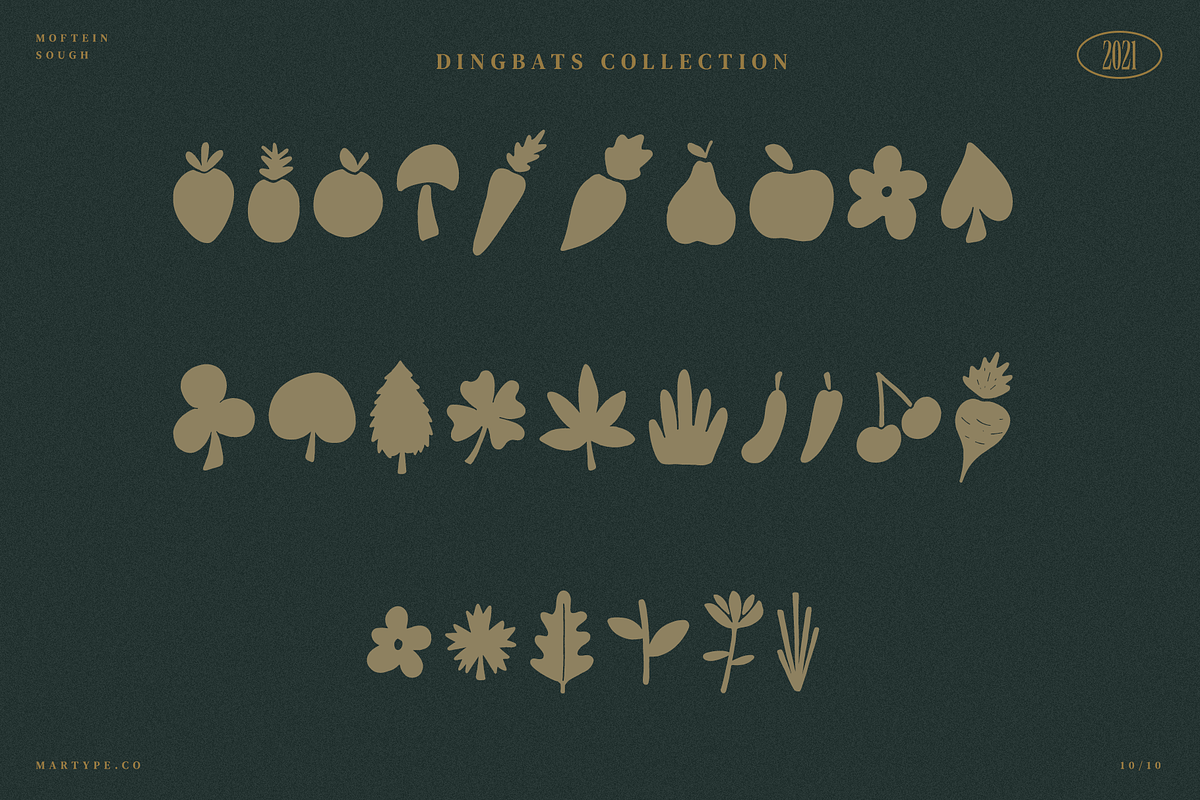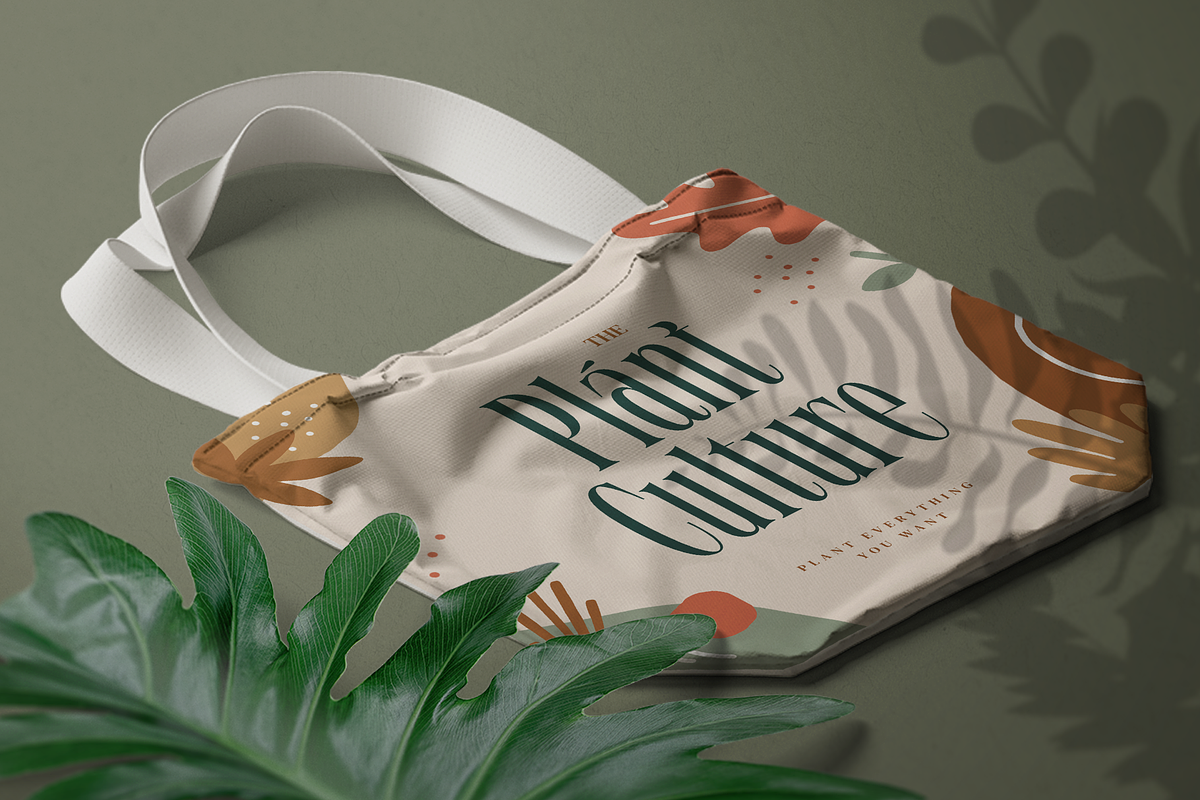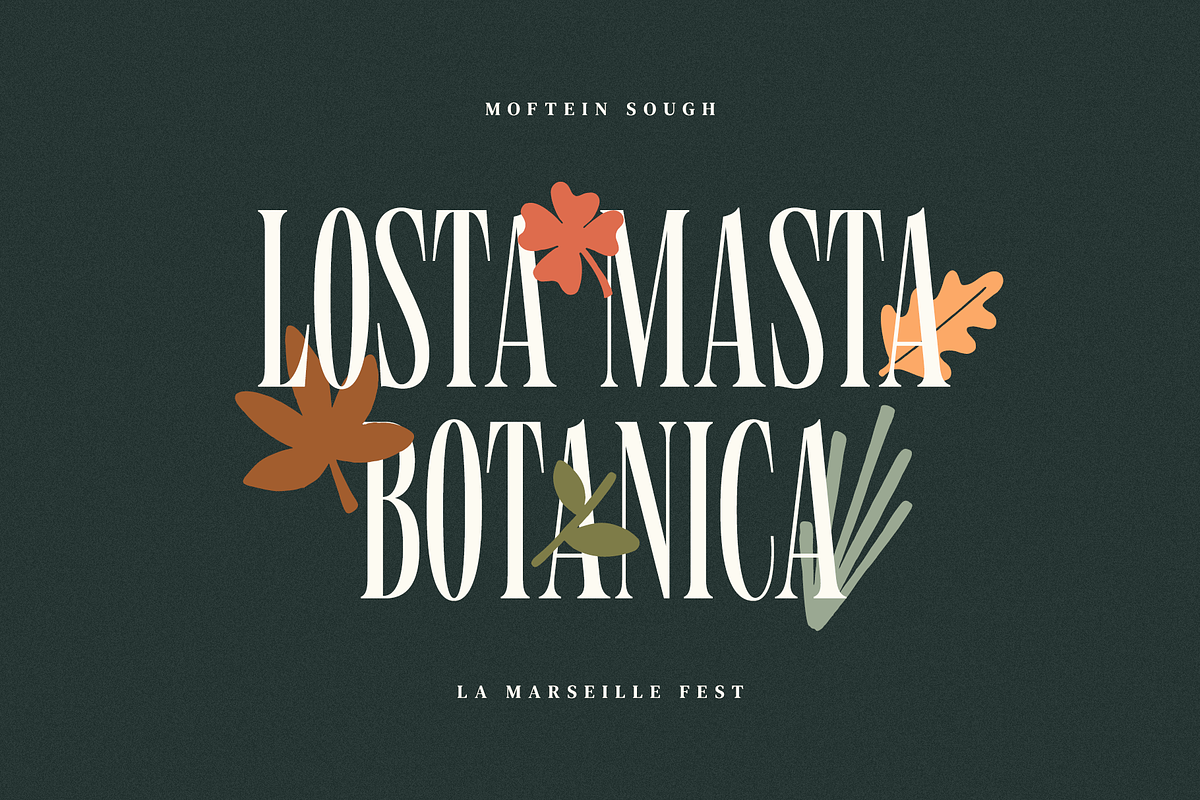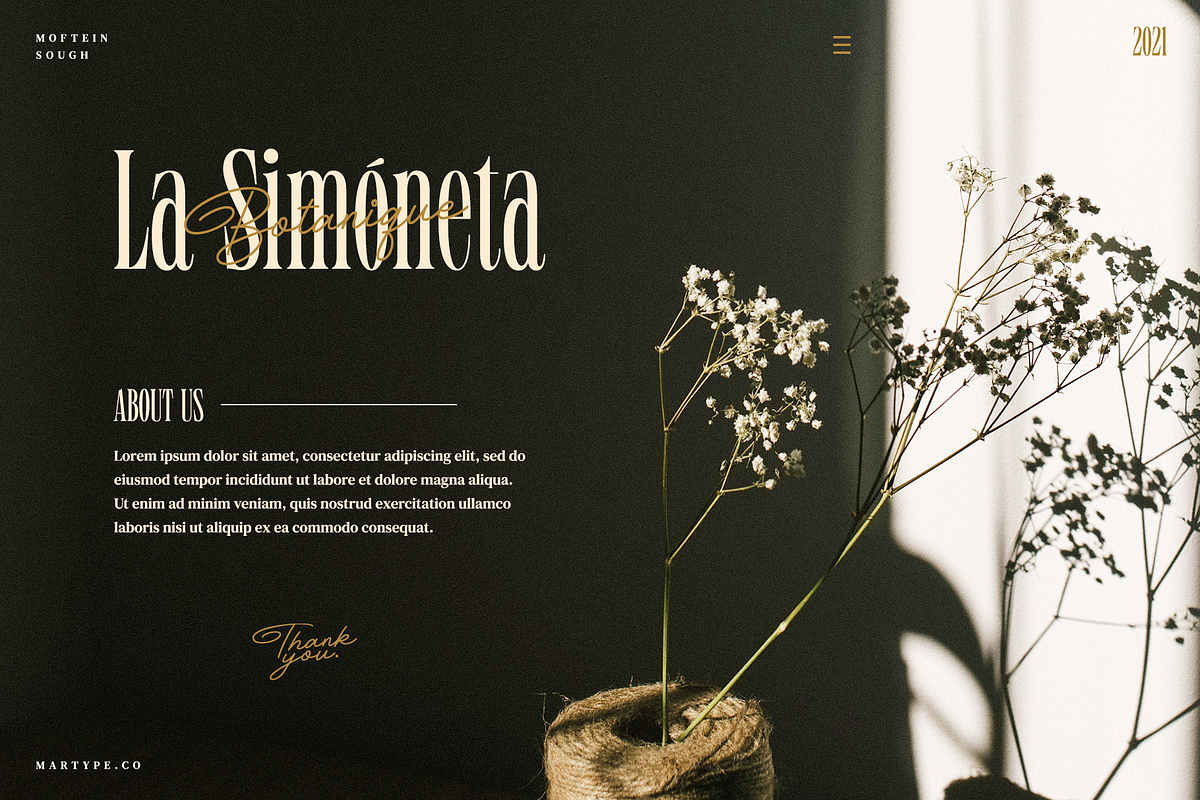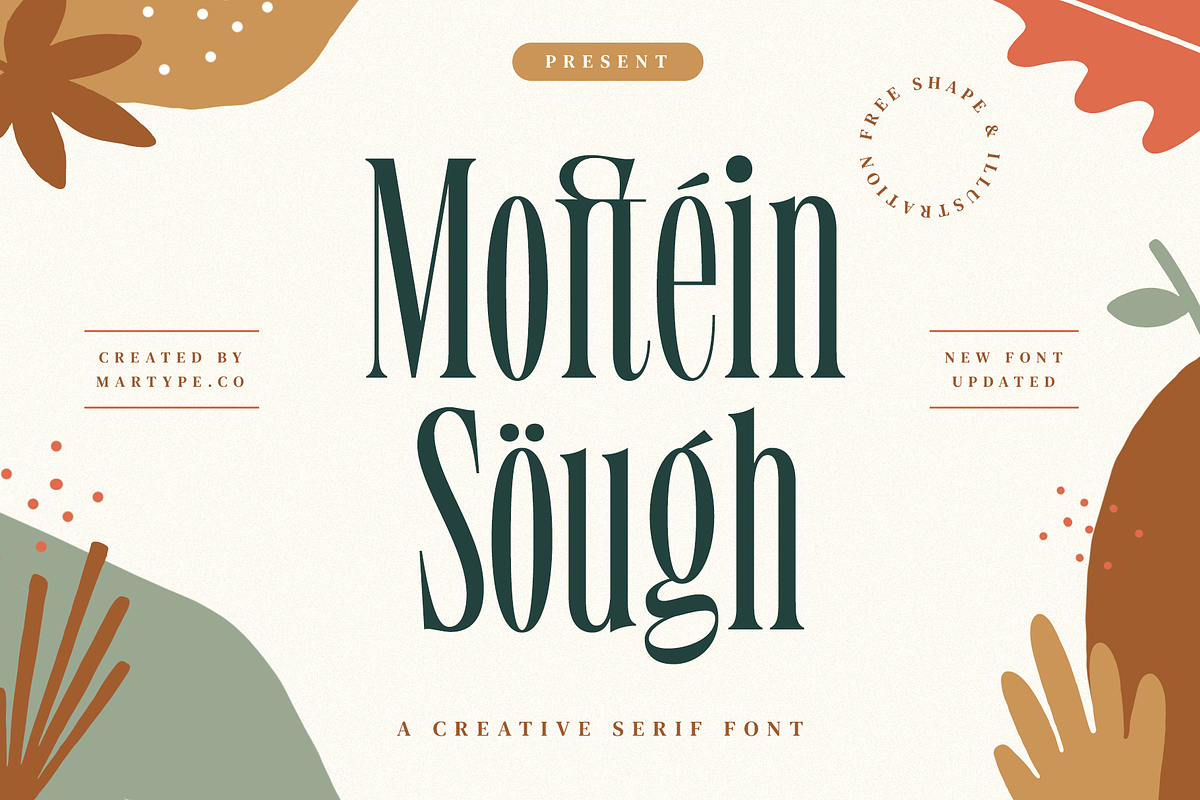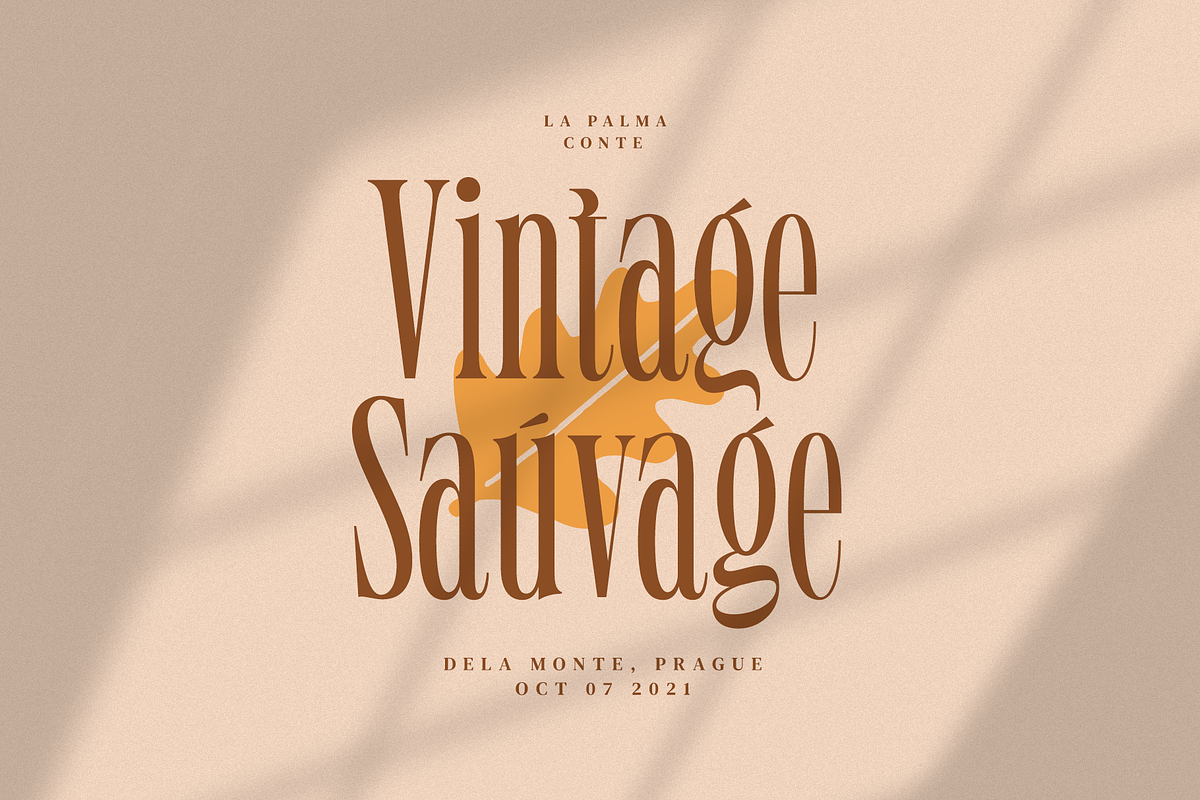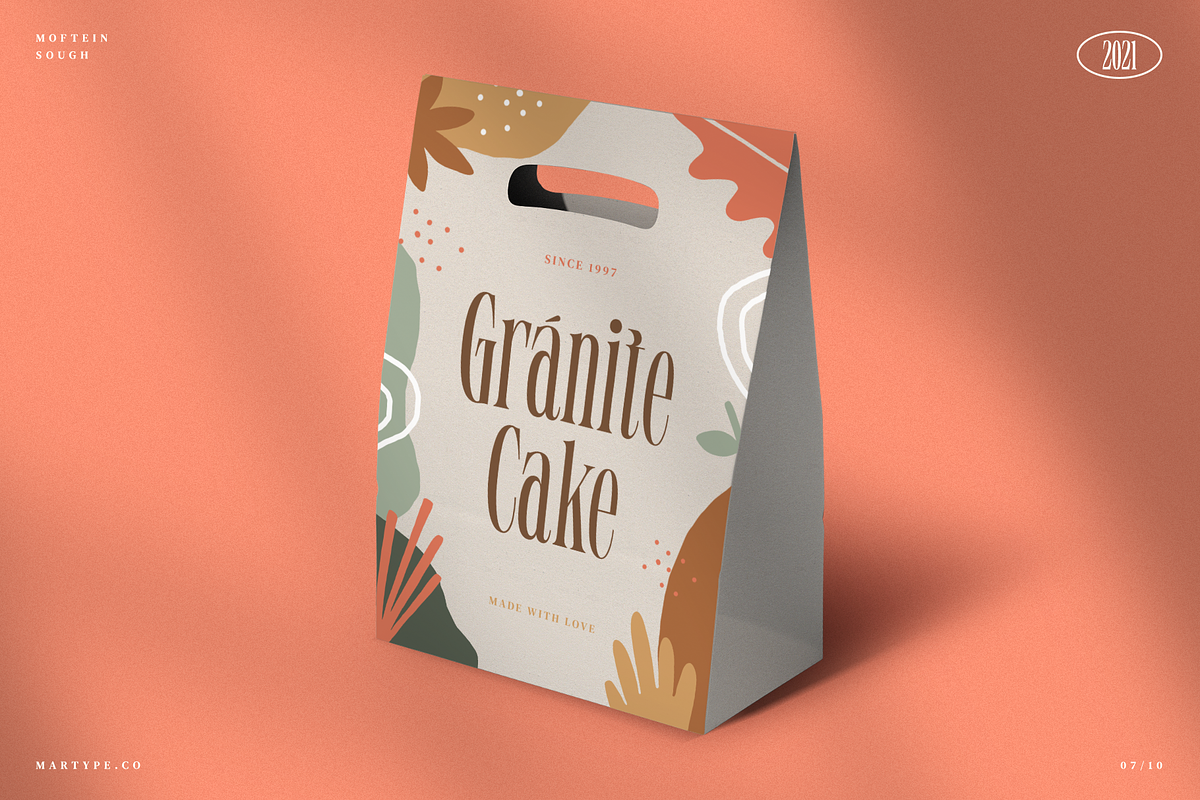
Moftein Sough - Display Font + Bonus
Moftein Sough Is a condensed serif font pairing with playful dingbat to make it satisfying, also suitable for minimalist, chic, branding, packaging and merch design to boost your design exploration.
- Moftein Sough
- Moftein Sough Slanted
- Moftein Sough Dingbat
Multilingual Support support many different languages 20+